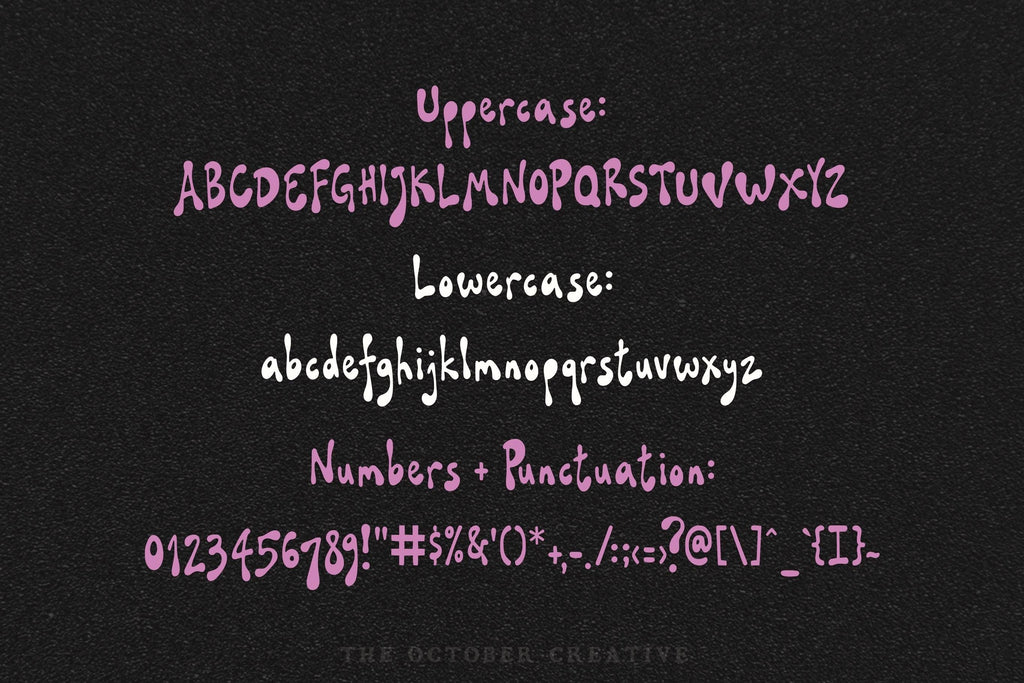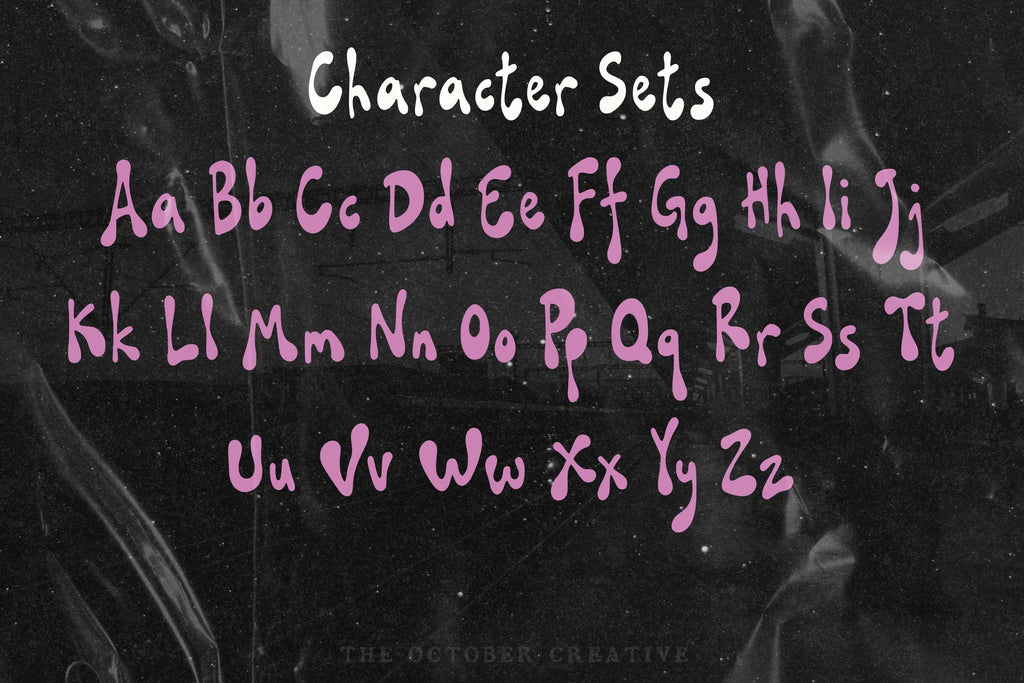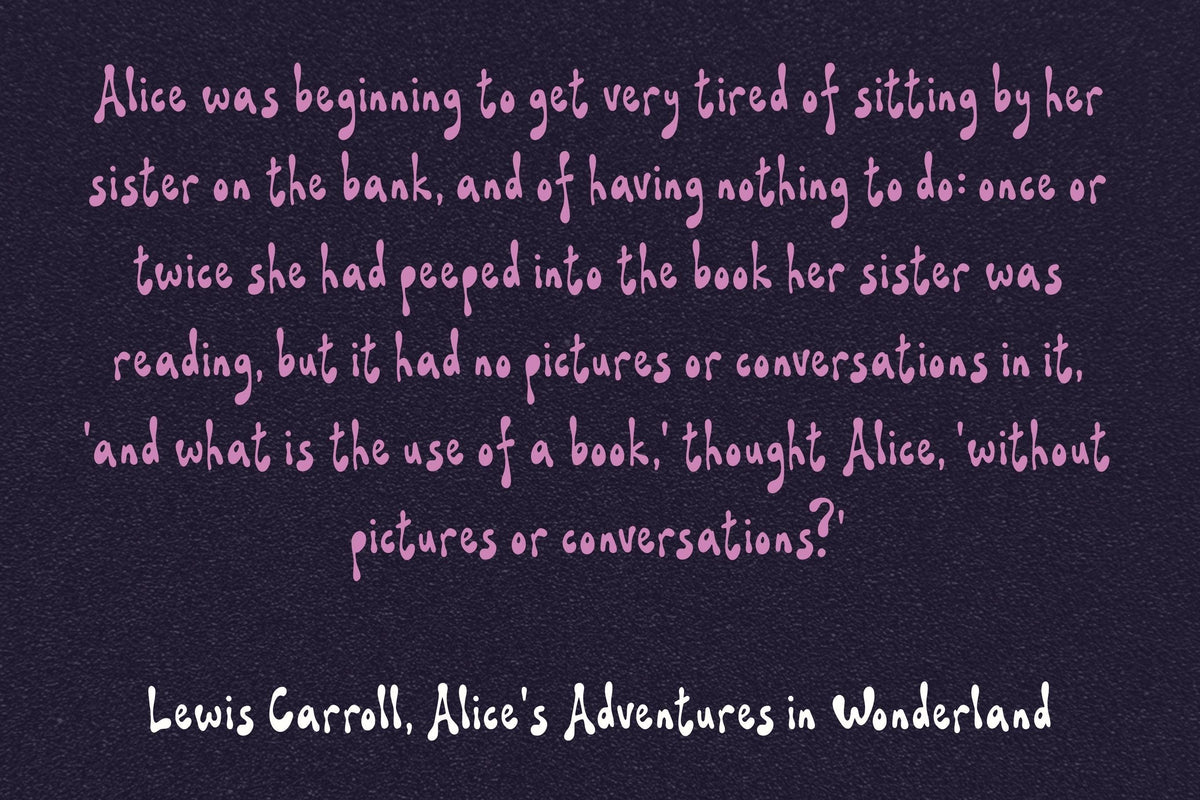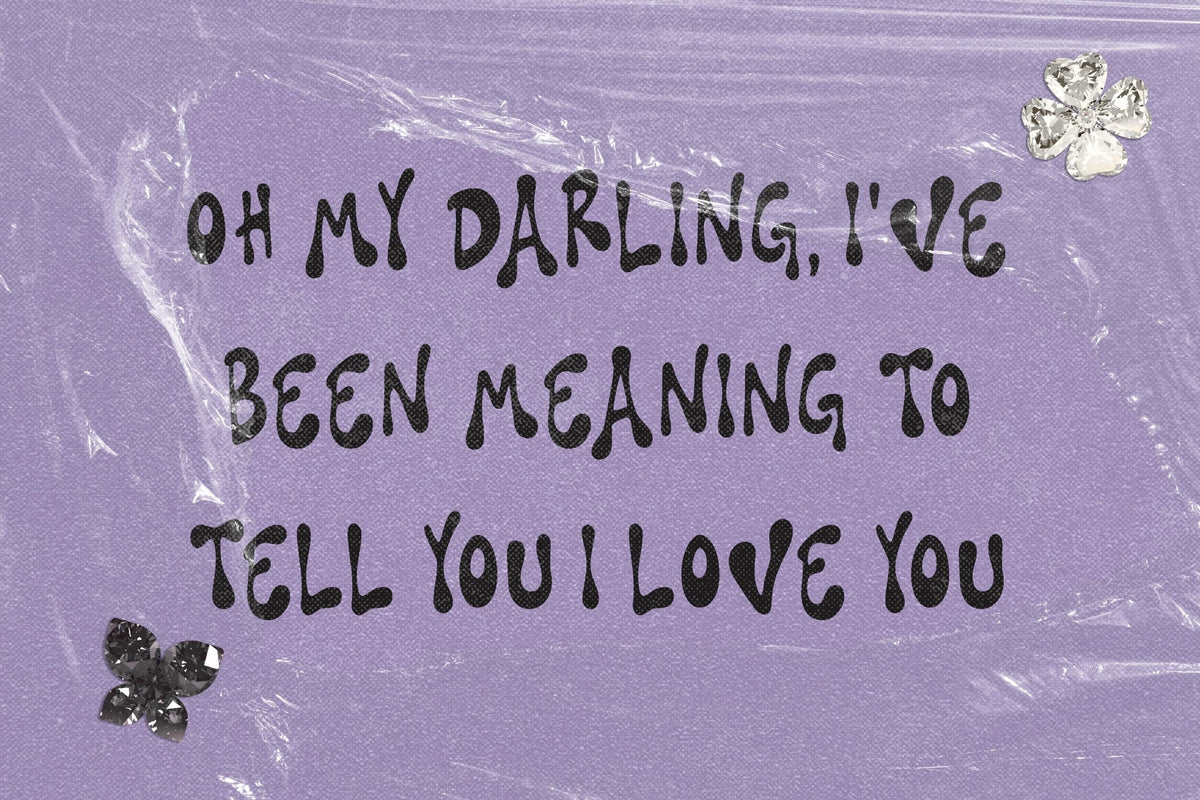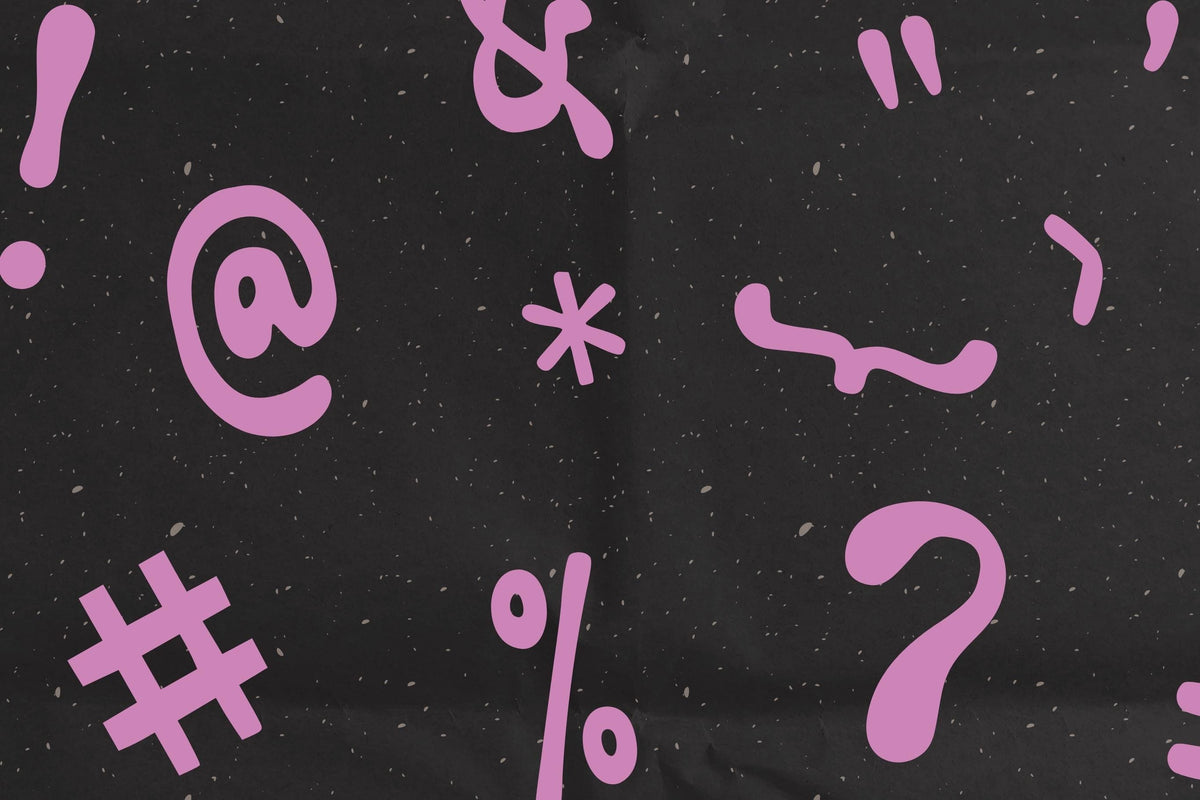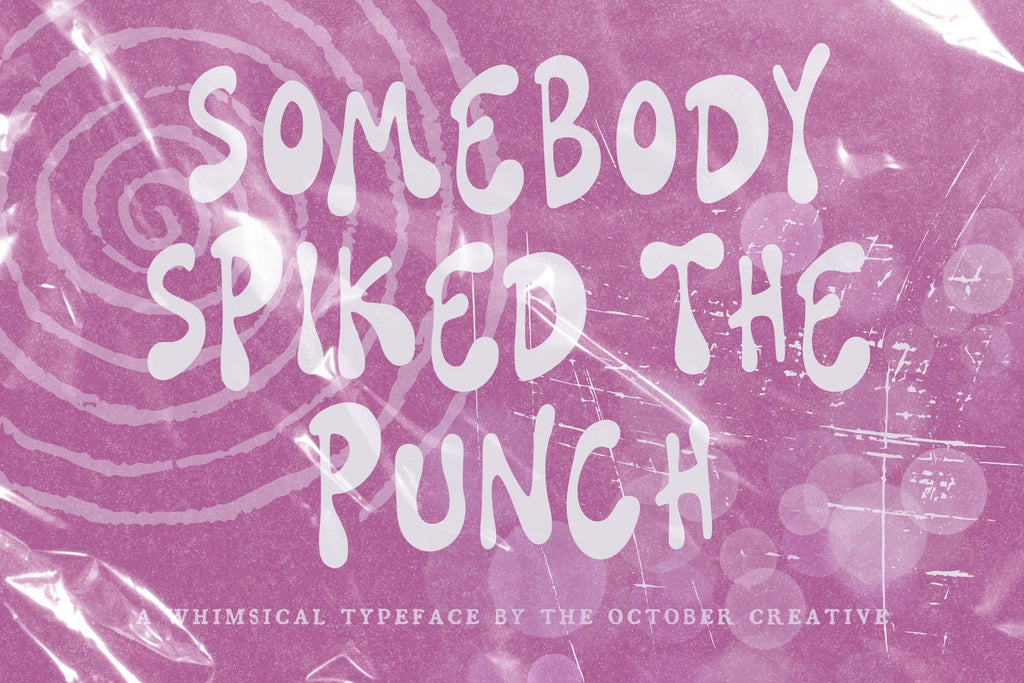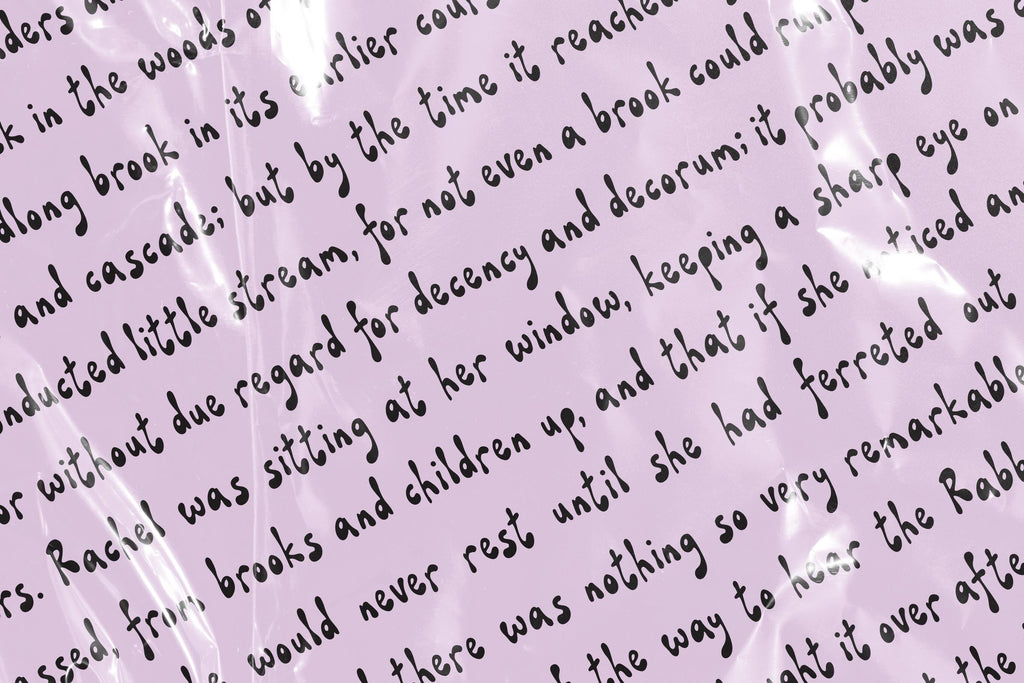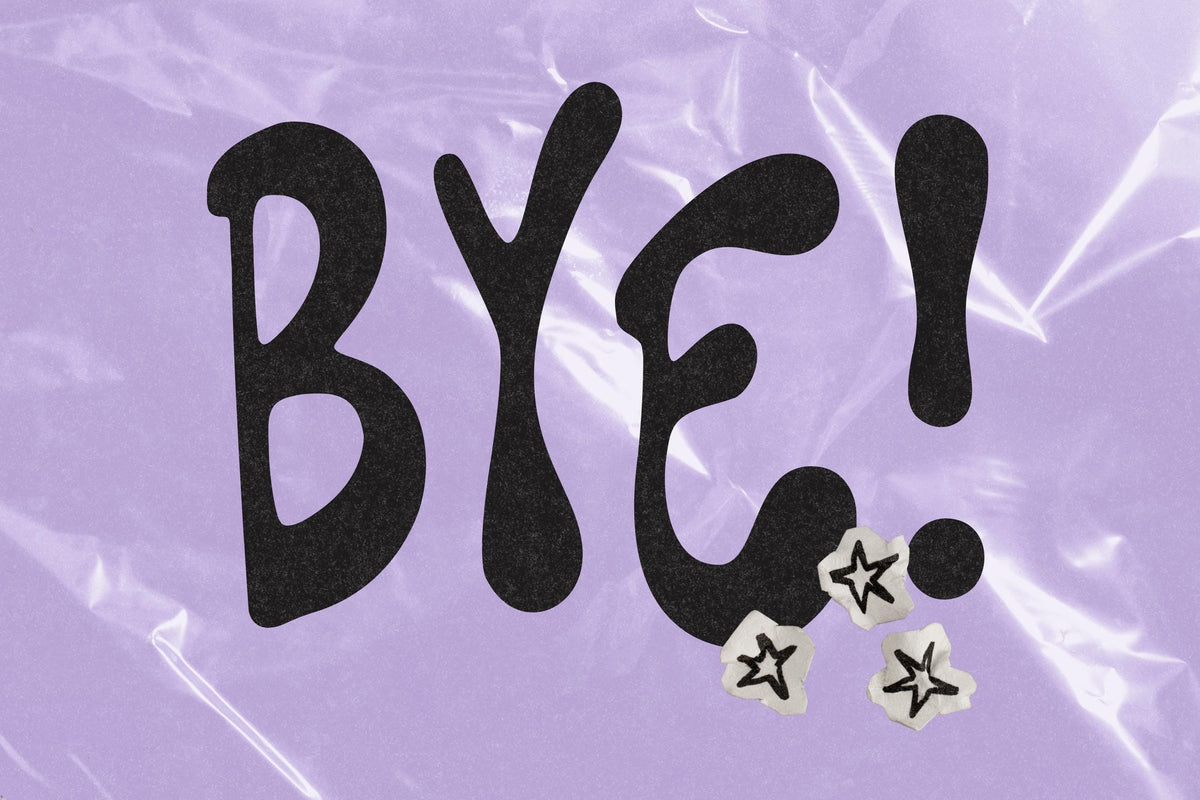
Somebody Spiked the Punch Font
Somebody Spiked the Punch is a bold, drippy font with heavy letters that melt into rounded drips. It's made for party graphics: bachelorette invitations, cocktail menus, signs, and stickers.